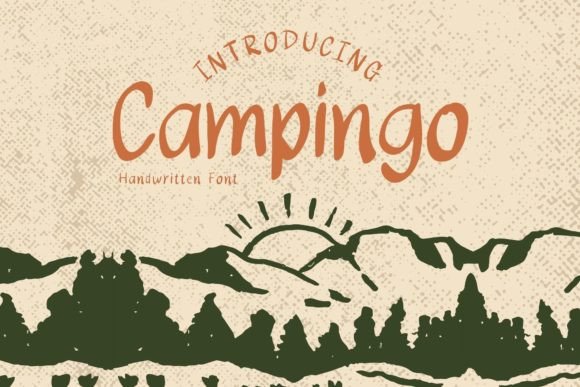
Prepare yourself to add a touch of romance to your digital creations with Campingo Font, an exquisitely crafted handwritten script font from Brown Cupple Fonts. Designed to capture the essence of a charming notebook, Campingo effortlessly blends playfulness with authenticity, making it an ideal choice for a wide array of projects.
With Campingo Font, you can infuse your blog posts, logos, branding endeavors, advertisements, invitations, greeting cards, planners, photo albums, decorations, and more with a personal and engaging touch. The font's unique style seamlessly integrates the charm of a handwritten note with the convenience of a digital font, allowing you to create designs that resonate with your audience on a deeper level.
Picture the allure of a heartfelt love letter, penned with Campingo's elegant strokes. This font carries the power to transform your words into an irresistible symphony, capturing the heart of your readers with its enchanting appearance. Its flowing lines and delicate curves evoke a sense of genuine connection, making it an exceptional choice for personal correspondence or expressions of affection.
Envision the pages of your blog adorned with Campingo's graceful characters, inviting readers into a world of intrigue and charm. Its playful nature adds a touch of whimsy, engaging the reader's attention and encouraging them to delve deeper into your content. Each word crafted with Campingo becomes a brushstroke in your storytelling, captivating your audience and leaving a lasting impression.
Imagine the impact of your branding efforts when infused with the allure of Campingo's script. From logos that radiate warmth and sophistication to business cards that exude professionalism with a personal touch, this font elevates your brand's visual identity to new heights. Campingo has the remarkable ability to connect with customers on an emotional level, forging a stronger bond between your brand and its loyal following.